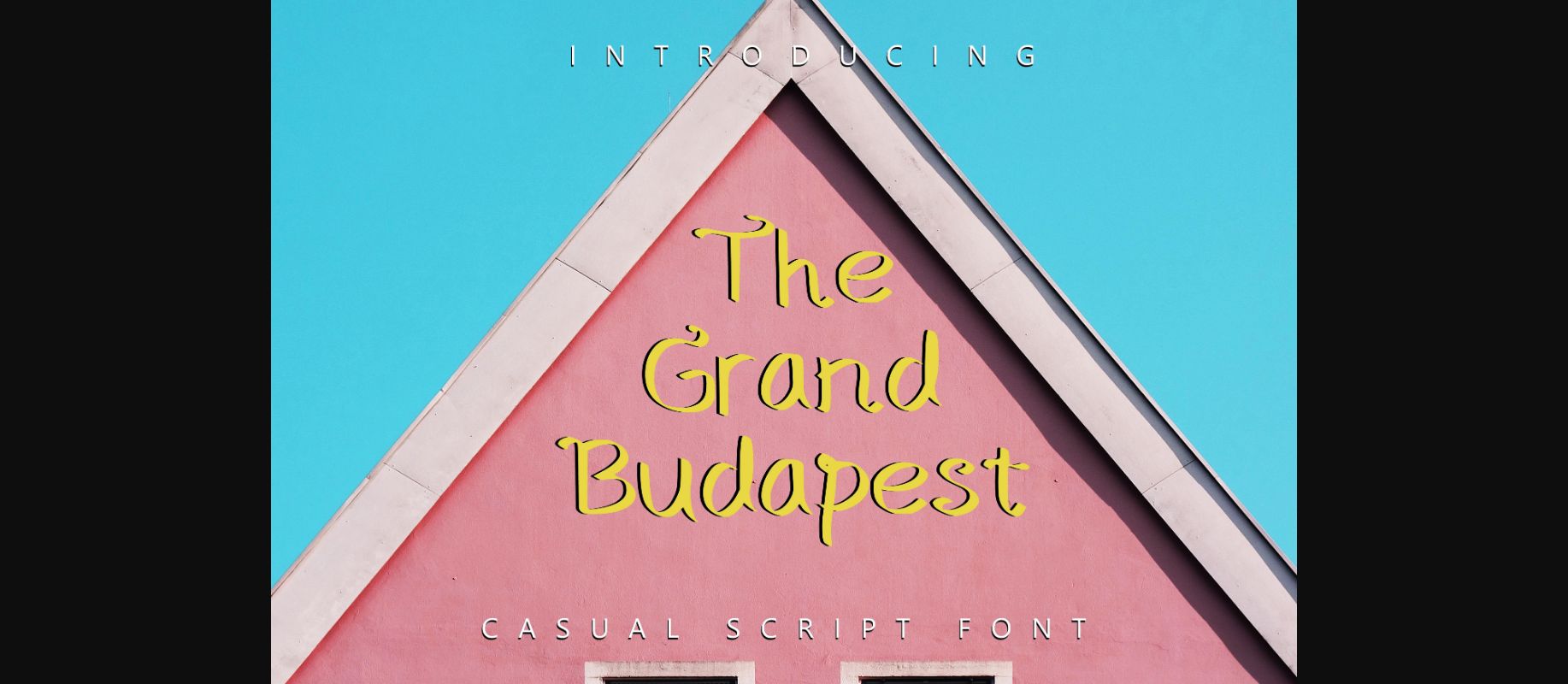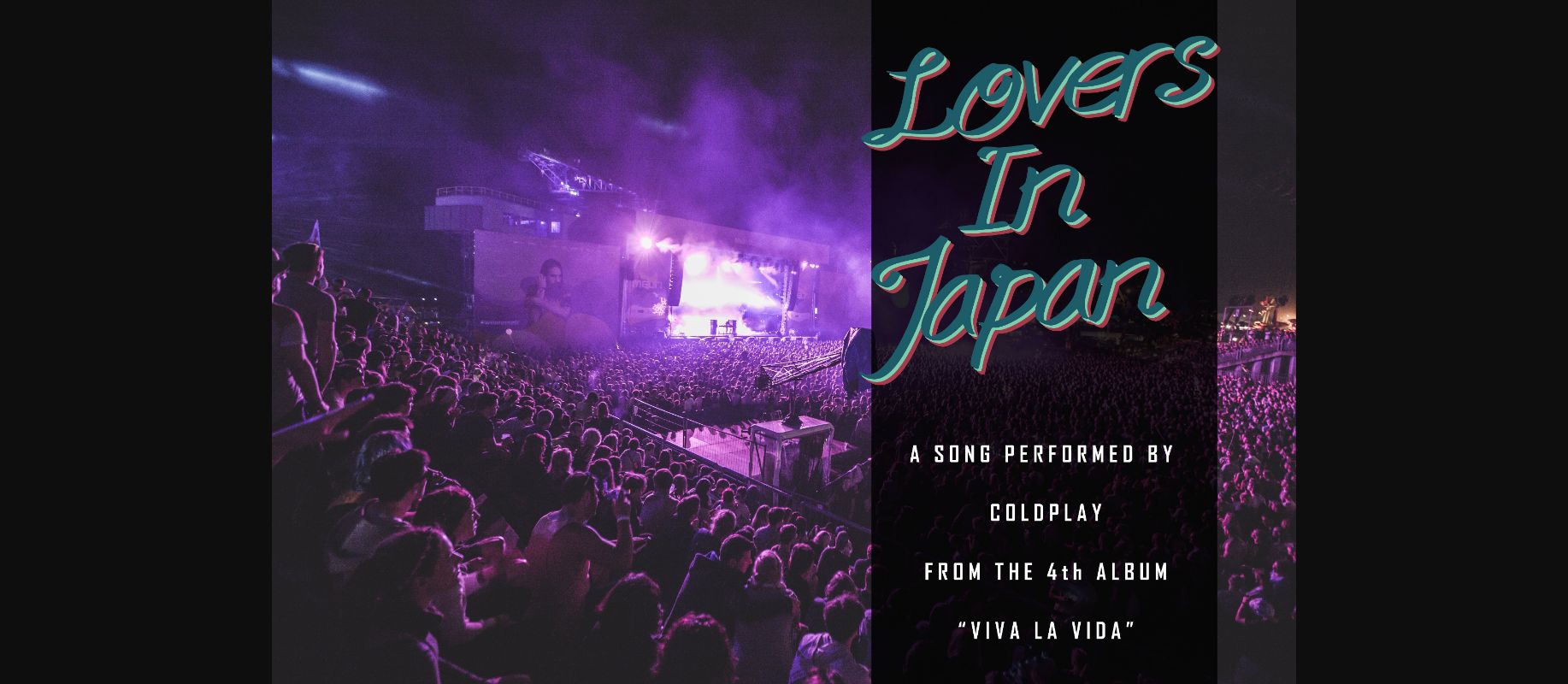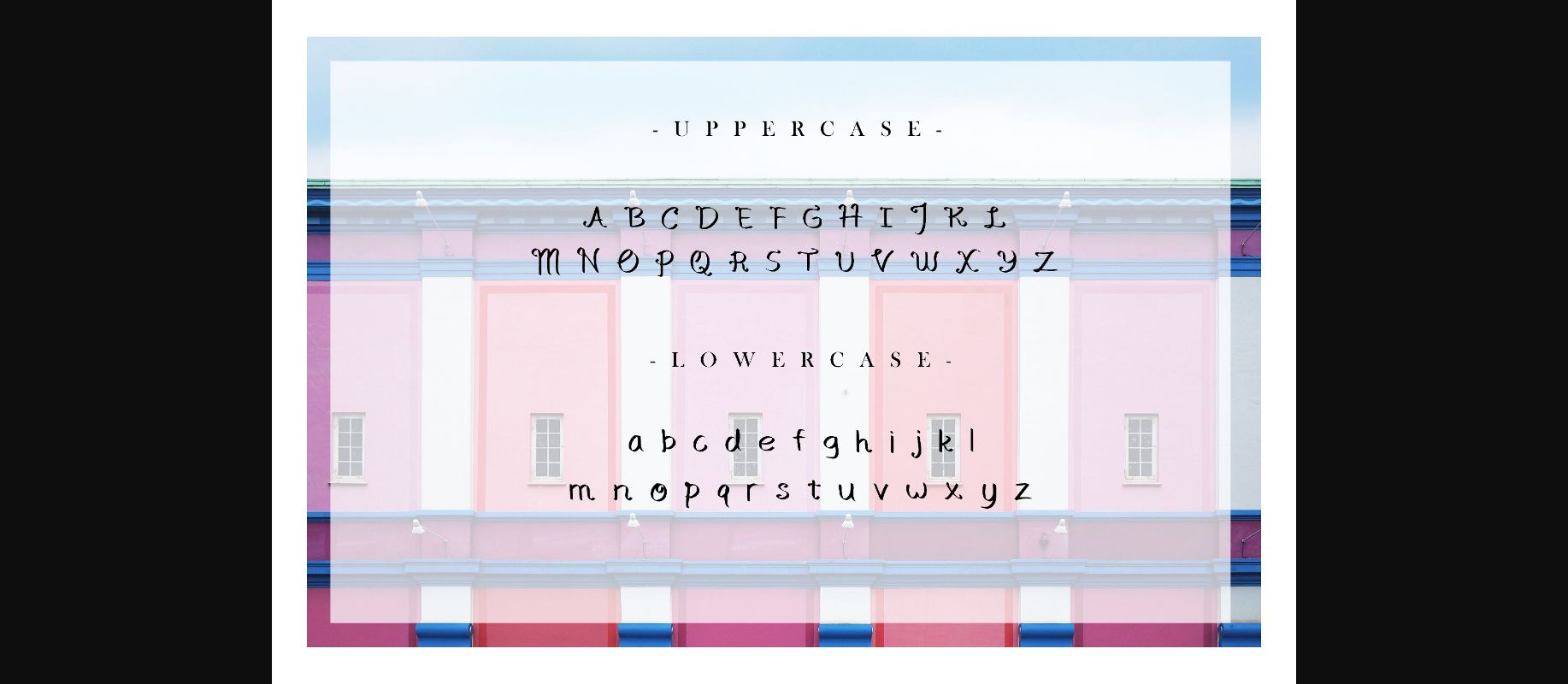
The Grand Budapest Font
About The Grand Budapest Font
The Grand Budapest is casual script font that suites for anything you need, such as website headers, flyers, book covers, cd covers, posters, branding, and much more!